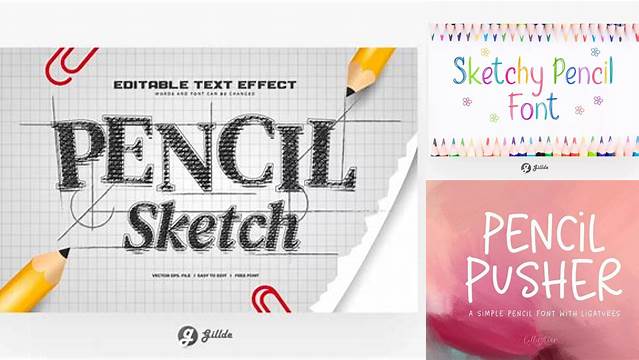
Download Free Pencil Fonts: Best Styles & Designs
Hey everyone! Are you on the hunt for some awesome font pencil free download options to jazz up your projects? Well, you've come to the right place! I'm stoked to share with you a treasure trove of free pencil fonts, perfect for everything from crafting stunning logos to creating eye-catching social media posts. Pencil fonts bring a unique, handwritten feel that can make your designs pop. They add a touch of personality and warmth, making them super versatile for various design needs. Whether you're a seasoned designer or just starting out, free pencil fonts are a fantastic way to enhance your creative toolkit without spending a dime. Let's dive into some of the best free pencil fonts available, how to download them, and how to use them to elevate your designs. I'll also explore different styles, from realistic to playful, and give you some tips on how to choose the right font for your project. This guide is all about helping you find the perfect font pencil free download that fits your needs and sparks your creativity. So, grab your virtual pencils, and let's get started!
H2: Understanding the Appeal of Pencil Fonts
Alright, let's talk about why pencil fonts are so darn appealing, shall we? Guys, they're more than just letters; they're like a little piece of art! The charm of a font pencil free download lies in their handcrafted aesthetic. They mimic the look and feel of handwriting or drawings, adding a personal touch that's hard to replicate with standard digital fonts. This organic feel makes them perfect for projects that aim to connect with an audience on a more emotional level. Think about it: a pencil font can instantly make your design feel warmer, more inviting, and more approachable. It's like adding a friendly face to your project! One of the biggest draws of font pencil free download is their versatility. They're suitable for a wide range of applications, from personal projects like scrapbooking and journaling to professional work like branding and marketing materials. You can use them to create logos, headlines, body text, and even decorative elements. This adaptability makes them a valuable asset in any designer's arsenal. Another reason pencil fonts are so popular is their ability to convey different moods and styles. Some fonts have a realistic, textured look that closely resembles actual pencil strokes, while others have a more stylized, playful design. This variety ensures that you can find a font that perfectly matches the tone and message of your project. If you are looking for font pencil free download, keep in mind that they often evoke a sense of creativity, authenticity, and nostalgia. They can transport your audience back to a simpler time, when things were handmade and personal. This can be especially effective in a world dominated by digital interfaces, where a handwritten touch can stand out and capture attention. So, the next time you're looking to infuse your design with character and charm, a pencil font might just be the perfect choice!
H3: The Unique Aesthetics of Handwritten Fonts
Let's dive a bit deeper into what makes handwritten fonts, especially when you find a font pencil free download, so special. These fonts are all about capturing the human touch. They are designed to replicate the nuances of real handwriting, including variations in stroke thickness, imperfect lines, and unique letterforms. This means that each character has its own personality, which adds a layer of authenticity that is difficult to achieve with other types of fonts. The beauty of handwritten fonts lies in their inherent imperfections. Unlike the clean, uniform look of digitally-created fonts, handwritten fonts often have slight variations that make them more visually interesting. These subtle differences give the impression that your design has been crafted with care and attention, making it feel more personal and relatable. This is why when you font pencil free download is ideal for adding a sense of individuality and character to your designs. Handwritten fonts are excellent at conveying emotions and setting a particular tone. Their casual, informal style is perfect for projects that aim to evoke a sense of warmth, friendliness, or playfulness. They can also create a feeling of nostalgia, reminding people of a time when handwritten notes and letters were the norm. By choosing the right handwritten font, you can instantly set the mood and create a stronger connection with your audience. Another significant advantage of handwritten fonts is their ability to stand out. In a world of uniform digital designs, a handwritten font can immediately grab attention and make your project feel unique. It signals a departure from the ordinary, making your designs memorable and encouraging viewers to take a closer look. This makes these fonts perfect for branding, marketing, and any other project that aims to make a strong impression. If you need a font pencil free download, just remember that they're all about infusing personality and authenticity into your designs.
H2: Where to Find the Best Free Pencil Fonts
H2: Different Styles of Pencil Fonts to Consider
Alright, let's talk about the cool stuff! There's a whole world of font pencil free download styles out there, each with its own vibe and personality. Here's a breakdown of some of the most popular types: First up, we have realistic pencil fonts. These fonts are designed to look like actual pencil strokes, complete with shading, texture, and imperfections. They're perfect for adding a touch of authenticity to your designs. Then there are sketched pencil fonts. These fonts have a slightly more stylized appearance, often with visible outlines and sketch marks. They're a great choice for adding a more artistic feel to your projects. For something a little more playful, you might want to consider cartoon pencil fonts. These fonts often have bold, exaggerated letterforms, making them perfect for children's designs or any project that needs a fun, lighthearted touch. There are also textured pencil fonts, which have a rough, grainy look. This can be great for adding a sense of depth and dimension to your designs. Some of these fonts will resemble the font pencil free download options. If you are looking for a more formal or elegant style, you might also find some calligraphic pencil fonts. These fonts are inspired by calligraphy and have graceful, flowing letterforms, which add a touch of sophistication to your designs. The variations are endless!
H3: Realistic vs. Stylized Pencil Font Designs
When you are looking for a font pencil free download, it's super important to know the difference between realistic and stylized fonts. Each style has its own unique characteristics and best uses. Realistic pencil fonts aim to replicate the look of actual pencil strokes as closely as possible. They often include details like varying line thicknesses, shading effects, and textures that mimic the appearance of lead on paper. These fonts are excellent for adding a touch of authenticity to your designs. Because they look so natural, they are perfect for projects that aim to evoke a sense of realism or handmade quality, such as illustrations, mockups, or projects that need to feel like they are authentically sketched. Stylized pencil fonts, on the other hand, take a more artistic approach. These fonts might exaggerate certain features, use simplified strokes, or incorporate unique design elements that deviate from the look of a real pencil. The result is a more distinctive and often more playful appearance. Stylized fonts are great for adding a creative and unique look to your project. The difference in style impacts the overall feel of the text. Realistic fonts are often used for projects with an illustrative nature, creating a sense of naturalness. Stylized fonts, with their unique style, can instantly catch attention and provide a playful or more artistic vibe. So, if you want a font pencil free download that perfectly matches your design, choose the style that fits your project's goals.
H2: Choosing the Right Pencil Font for Your Project
So, you've got a bunch of font pencil free download options, but how do you pick the perfect one for your project? Here's a quick guide to help you choose wisely: First, think about the tone of your project. Are you going for a fun, playful vibe, or something more serious and professional? The font you choose should reflect the overall mood you want to create. Then, consider your target audience. Who are you trying to reach? A playful font might be perfect for a children's book, while a more sophisticated font would be better for a business presentation. Next, think about readability. Make sure the font is easy to read, especially if you're using it for body text. Some pencil fonts can be a bit tricky to read, so test it out to make sure it works well. Also, consider the context of your design. Where will your font be used? If it's for a logo, you might want something bold and eye-catching. If it's for body text, choose a font that's clear and easy on the eyes. Make sure the font style matches your project. If you are looking for a font pencil free download, consider all the aspects. Before you make your final choice, test the font in your design. See how it looks with your other design elements and make sure it works well for the text you need to display. If you follow these guidelines, you'll be well on your way to selecting the perfect pencil font for your project!
H3: Evaluating Font Readability and Legibility
Before you commit to a font pencil free download, you've got to ensure it's easy to read, or else your audience will be left scratching their heads. Readability and legibility are super important in any font, but even more so with pencil fonts, where the style can sometimes impact how easily the letters can be distinguished. Readability refers to how easily a body of text can be read, while legibility refers to how easily individual letters and characters can be recognized. A highly readable font allows readers to quickly scan and understand the text, while a legible font has clearly defined characters that are easy to recognize. When evaluating a pencil font for readability, consider the spacing between letters (kerning), words, and lines. Well-spaced text is easier on the eyes. Also, look at the font's x-height (the height of the lowercase letters). Fonts with a higher x-height tend to be more readable. Make sure the font's style doesn't make it difficult to distinguish between similar letters. For instance, the letters